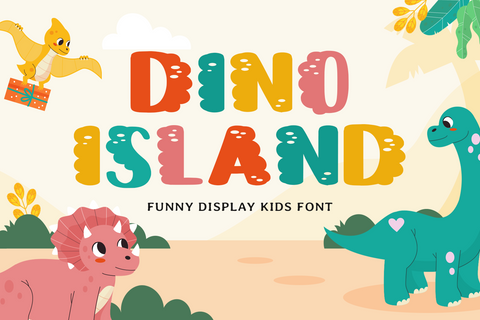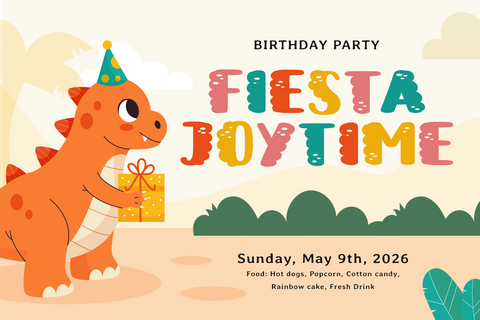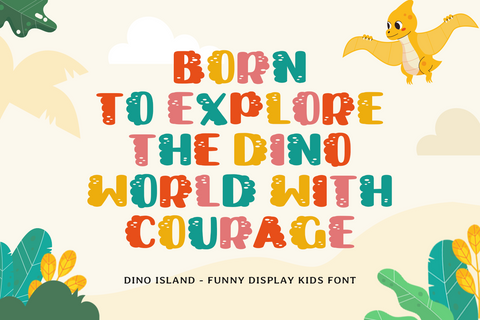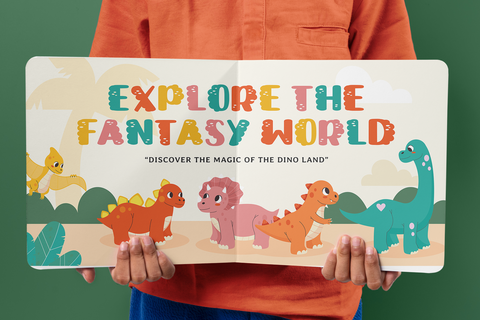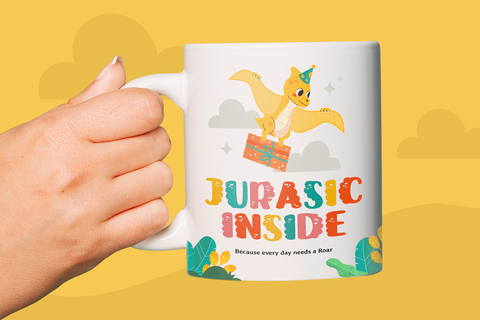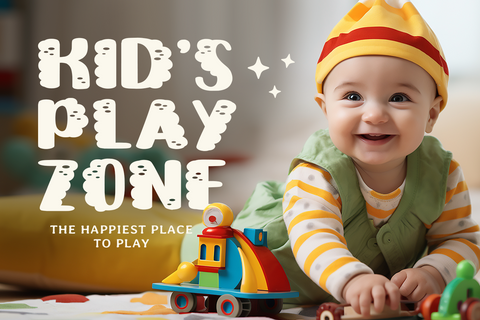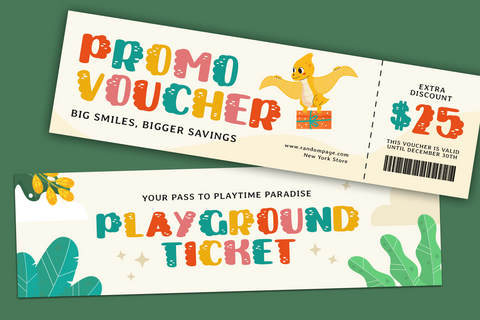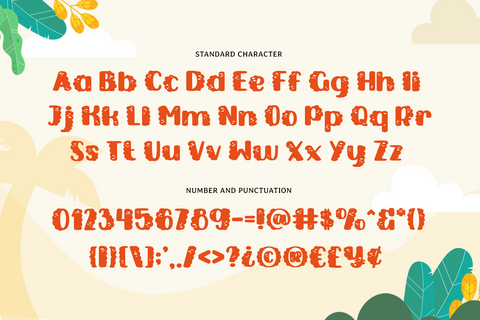
DINO ISLAND - Dino Font
Dino Island – Dino Font is a playful animal-style display typeface designed to bring prehistoric fun and adventurous energy into your projects. Inspired by dinosaur themes and nature’s wild spirit, this font combines bold shapes with organic textures, making it the perfect choice for designs that capture excitement and imagination.
With its dino-inspired character, Dino Island is ideal for zoo signage, amusement park boards, adventure games, and nature-themed branding. The rustic and adventurous design makes it especially suitable for national park signs, jungle maps, and children’s learning materials.
Crafted with fun and readability in mind, Dino Island balances strong, adventurous letterforms with playful charm. It adapts seamlessly across both digital and physical projects, from wood-carved effect signs to interactive game titles and educational tools.
Perfect for crafting, Cricut projects, children’s party decorations, or playful merchandise, this font adds a lively and adventurous touch wherever it’s used. Its dinosaur-inspired details make it an excellent choice for jungle adventures, zoo events, and exploration-themed activities.
Bring prehistoric excitement to your creative work with Dino Island – Dino Font. Add this adventurous display typeface to your collection and make every project roar with fun, energy, and wild imagination.